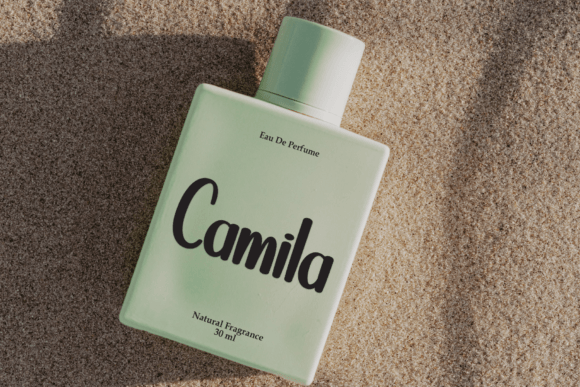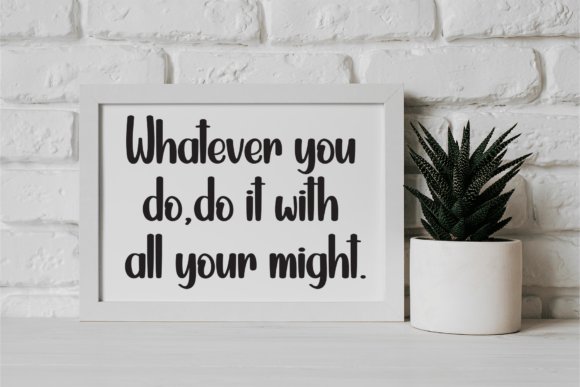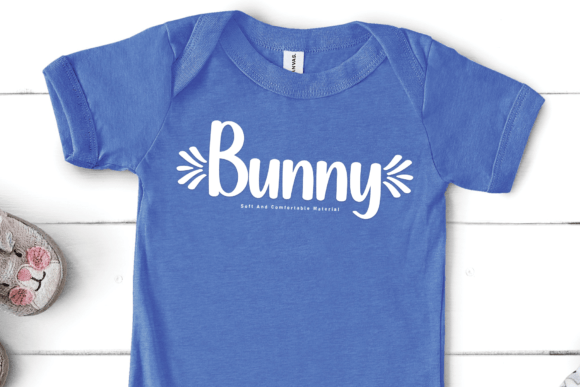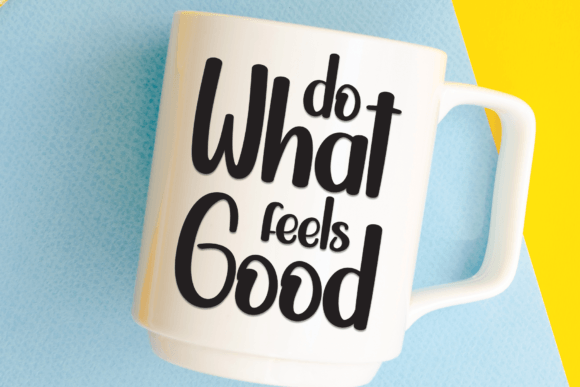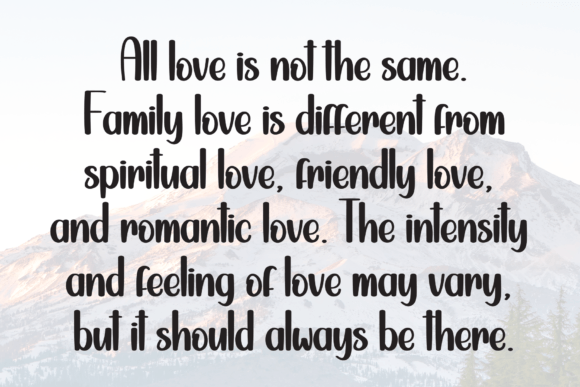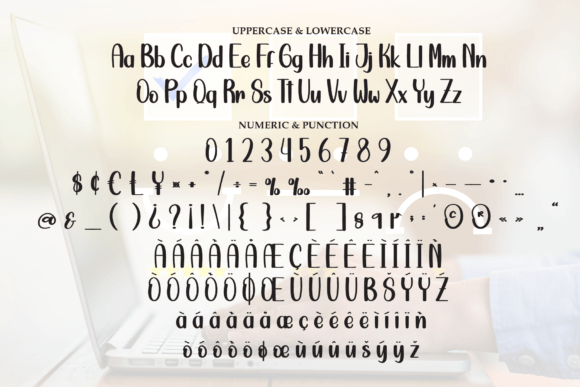
Cute Quality Font: Adding a Touch of Warmth and Personality to Your Designs
In the world of typography, a font can make or break a design project. A well-chosen font can elevate your brand, add a touch of elegance to your invitations, or make your social media graphics stand out. If you’re looking for a font that exudes freshness, casual elegance, and a laid-back vibe, look no further than Cute Quality Font. In this article, we’ll dive into the world of Cute Quality Font, exploring its features, uses, and benefits for designers and crafters.
What is Cute Quality Font?
Cute Quality Font is a charming handwritten font that is imbued with a sense of freshness and casual elegance. Its fluid strokes and organic lines evoke a laid-back vibe, making it perfect for various design projects. The font’s unique characteristics make it an excellent choice for designers and crafters looking to add a touch of warmth and personality to their work.
Key Features of Cute Quality Font
- Handwritten style: Cute Quality Font boasts a beautiful, handwritten style that adds a personal touch to any design project.
- Fluid strokes: The font’s fluid strokes and organic lines create a sense of movement and fluidity, making it perfect for designs that require a dynamic feel.
- Casual elegance: Cute Quality Font exudes a sense of casual elegance, making it suitable for a wide range of design projects, from branding to social media graphics.
- Laid-back vibe: The font’s laid-back vibe makes it perfect for designs that require a relaxed and approachable feel.
Uses of Cute Quality Font
Cute Quality Font is a versatile font that can be used for a wide range of design projects, including:
- Branding: Use Cute Quality Font to create a unique and memorable brand identity that stands out from the crowd.
- Invitations: Add a touch of elegance and sophistication to your invitations with Cute Quality Font.
- Social media graphics: Use Cute Quality Font to create eye-catching social media graphics that grab attention and convey your message.
- Packaging design: Cute Quality Font is perfect for packaging design, adding a touch of personality and whimsy to your product packaging.
Benefits of Using Cute Quality Font
So, why choose Cute Quality Font for your design projects? Here are just a few benefits of using this charming font:
- Unique and memorable: Cute Quality Font is a unique and memorable font that will help your design projects stand out from the crowd.
- Easy to read: Despite its handwritten style, Cute Quality Font is easy to read, making it perfect for designs that require a clear and concise message.
- Versatile: Cute Quality Font is a versatile font that can be used for a wide range of design projects, from branding to social media graphics.
- Time-saving: With Cute Quality Font, you can save time and effort in creating custom designs from scratch.
Tips for Using Cute Quality Font
To get the most out of Cute Quality Font, here are a few tips to keep in mind:
- Use it sparingly: While Cute Quality Font is a beautiful font, it’s best to use it sparingly to avoid overwhelming your design.
- Pair it with other fonts: Experiment with pairing Cute Quality Font with other fonts to create a unique and visually appealing design.
- Adjust the size and color: Adjust the size and color of Cute Quality Font to suit your design needs and ensure it complements your overall design.
In conclusion, Cute Quality Font is a charming handwritten font that adds a touch of warmth and personality to any design project. With its fluid strokes, organic lines, and laid-back vibe, it’s perfect for a wide range of design projects, from branding to social media graphics. Whether you’re a designer or crafter, Cute Quality Font is a great addition to your font collection. So why not give it a try and see how it can elevate your design projects?